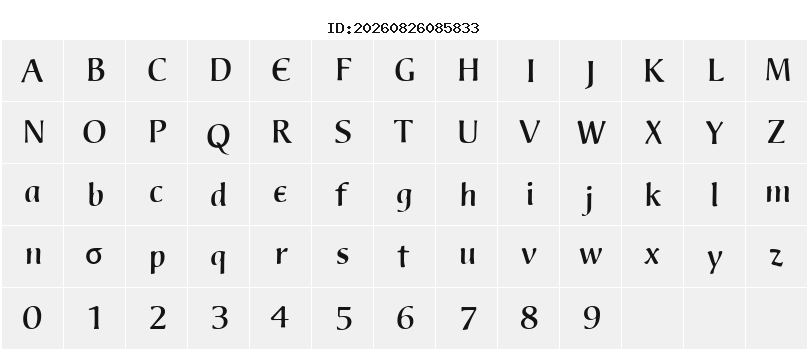
Welcome Y2 Preview
About Welcome Y2.ttf
Welcome Y2.ttf is a modern, elegant sans-serif font designed for ultimate readability and visual harmony. Perfect for branding, headlines, web design, and print materials.